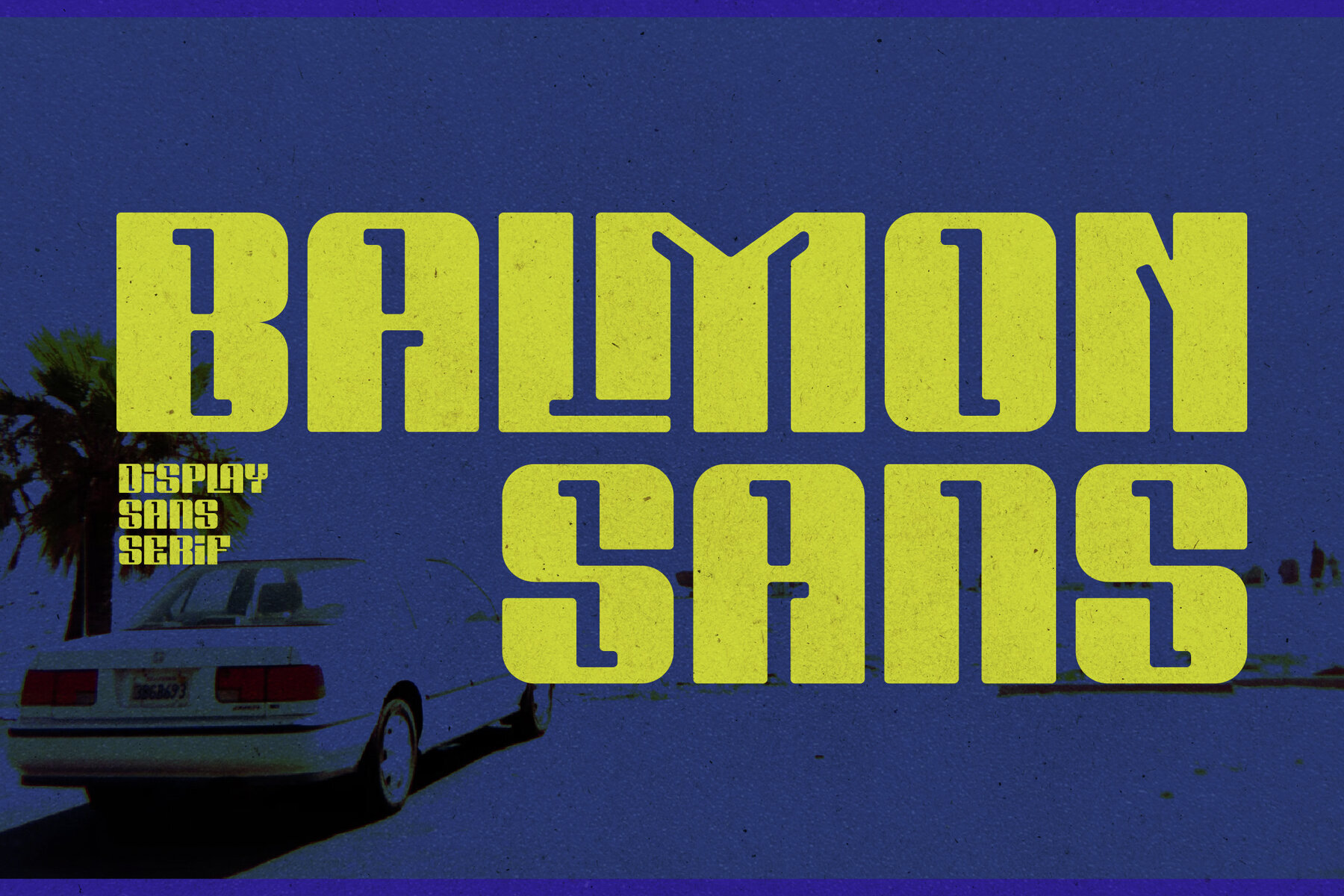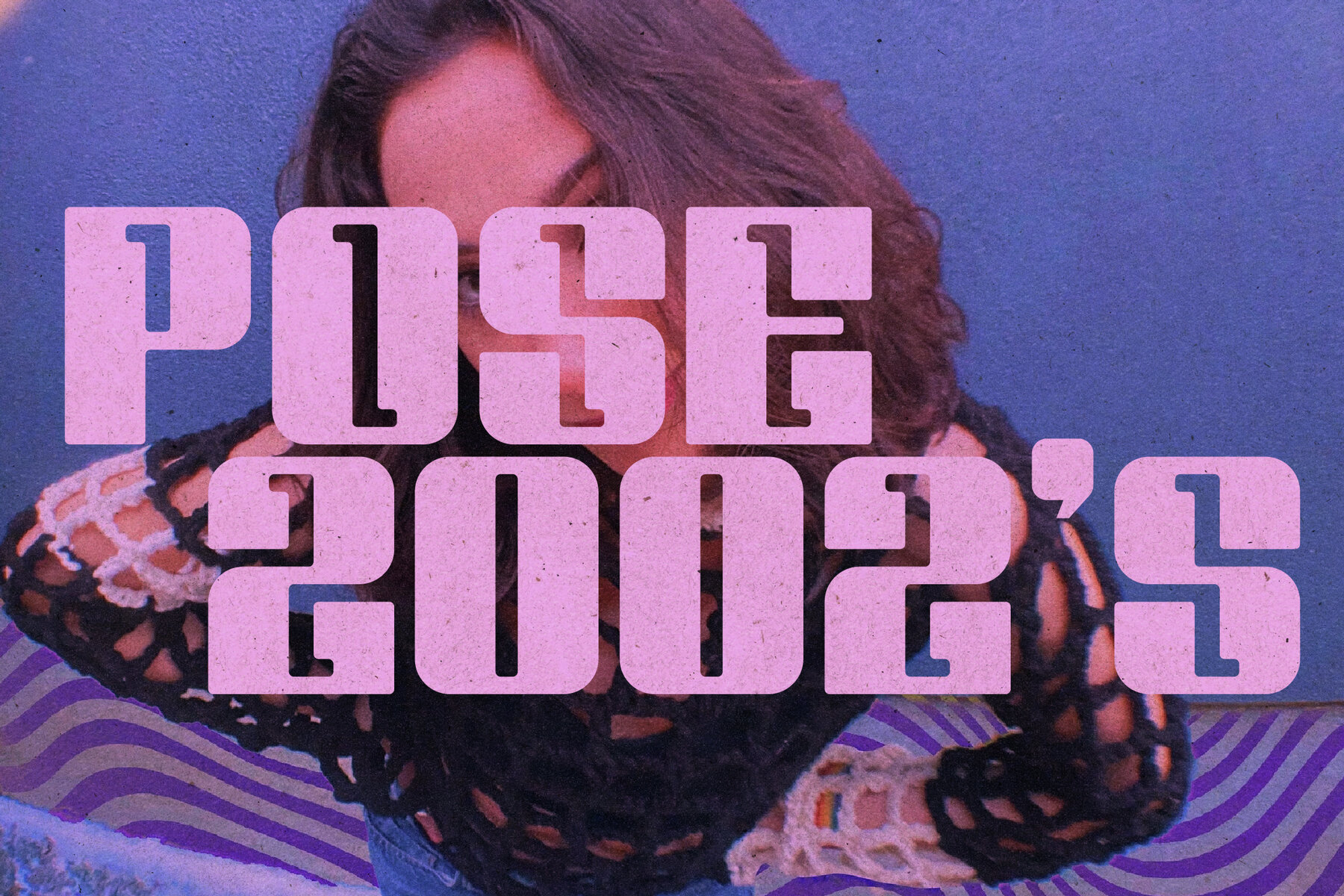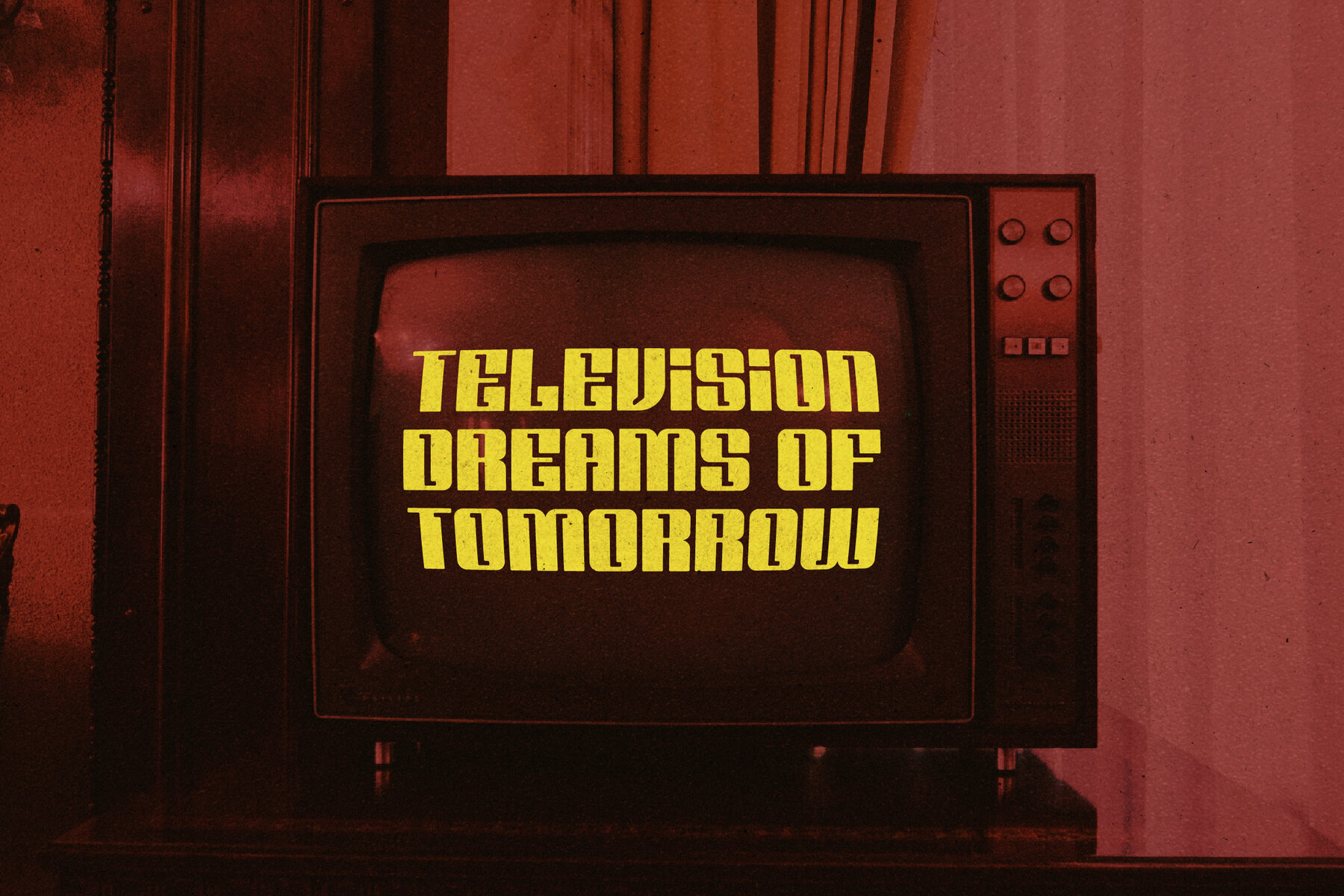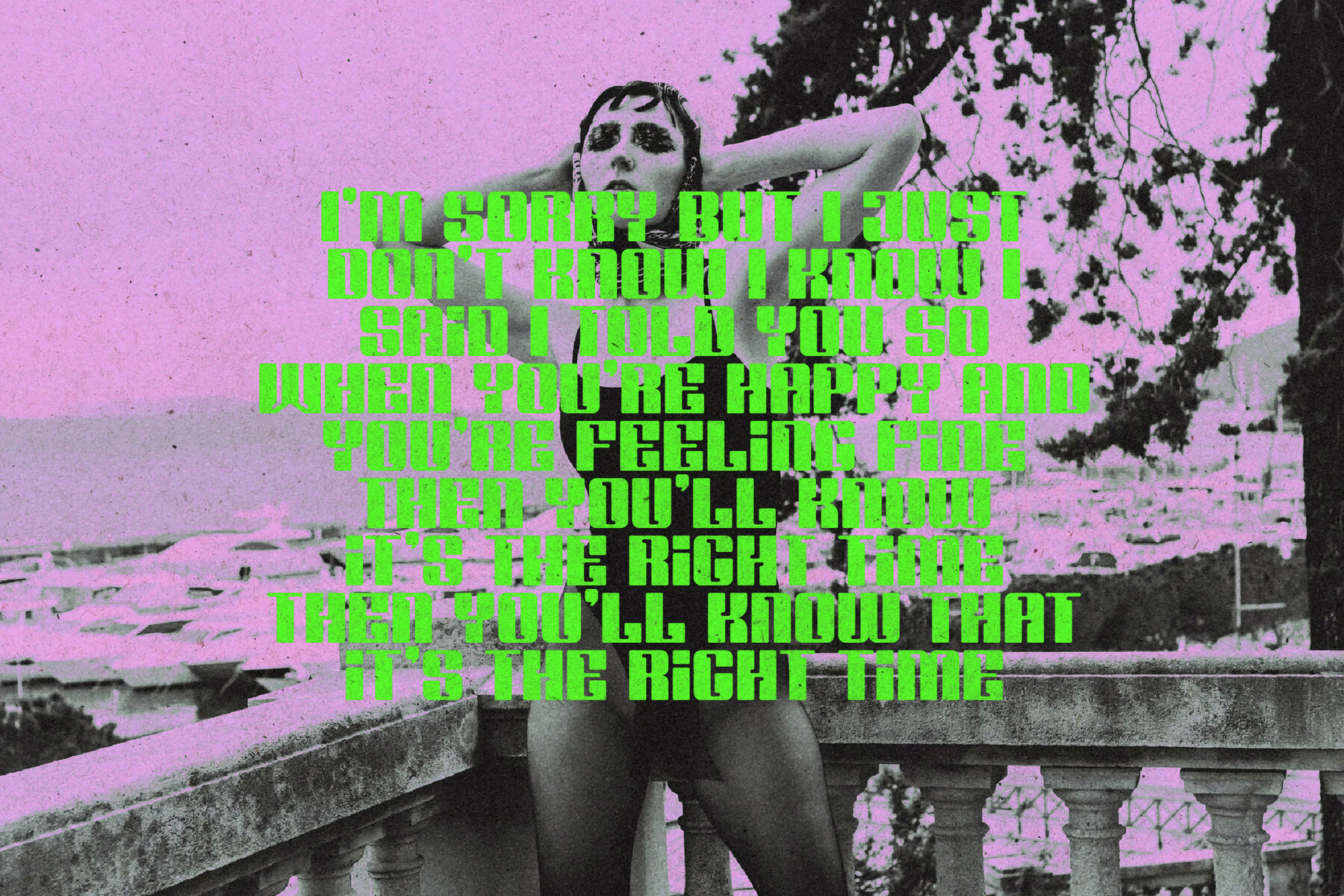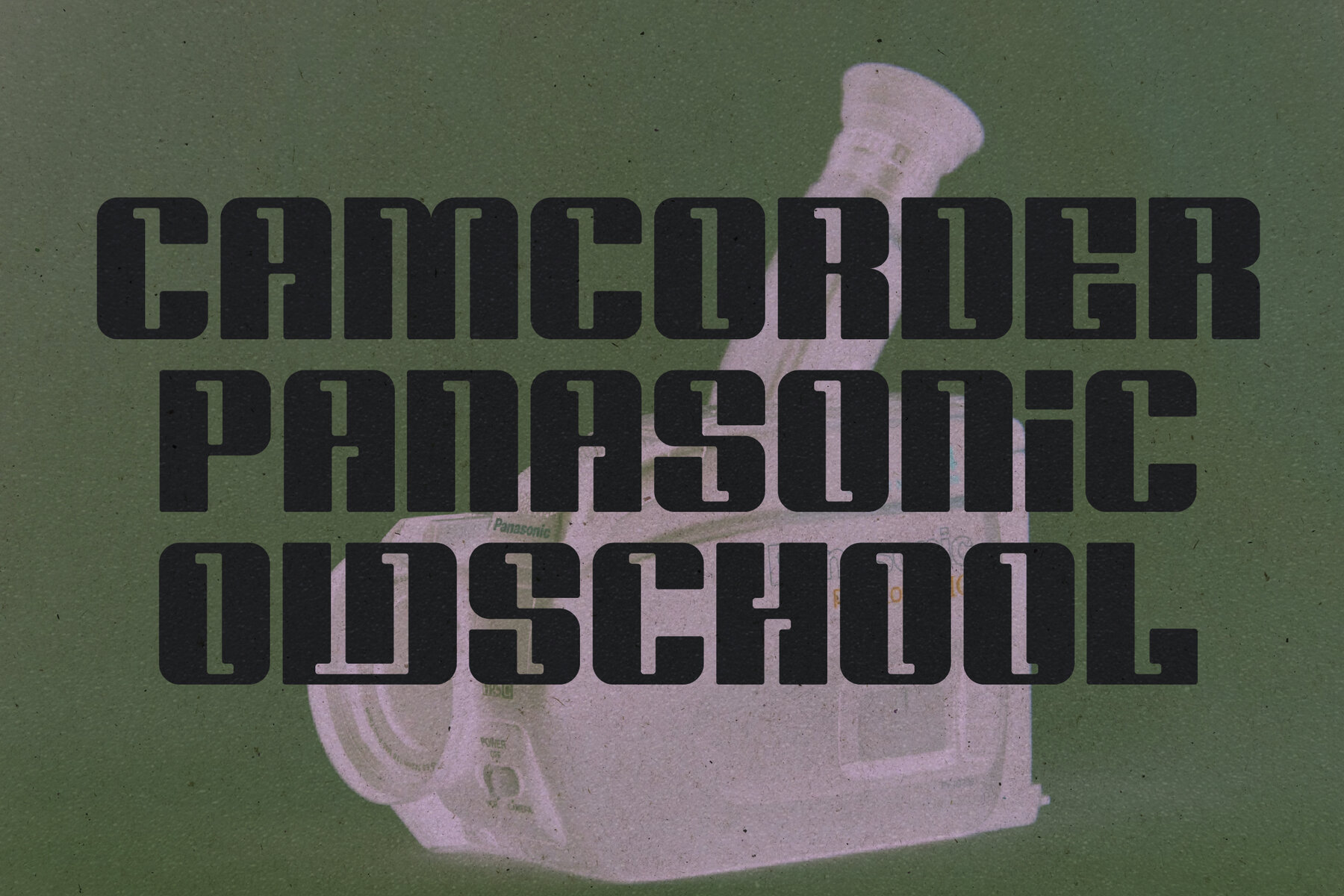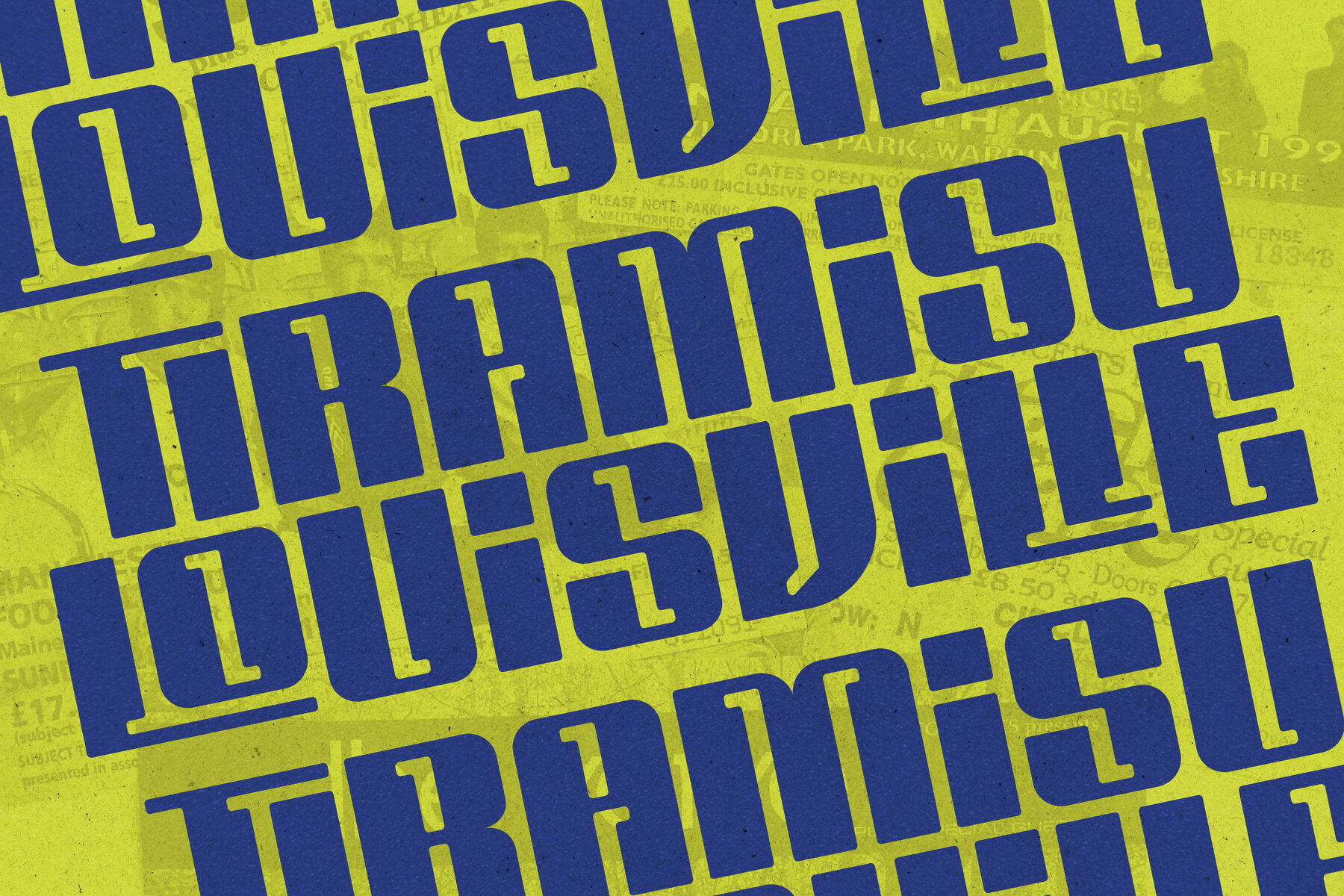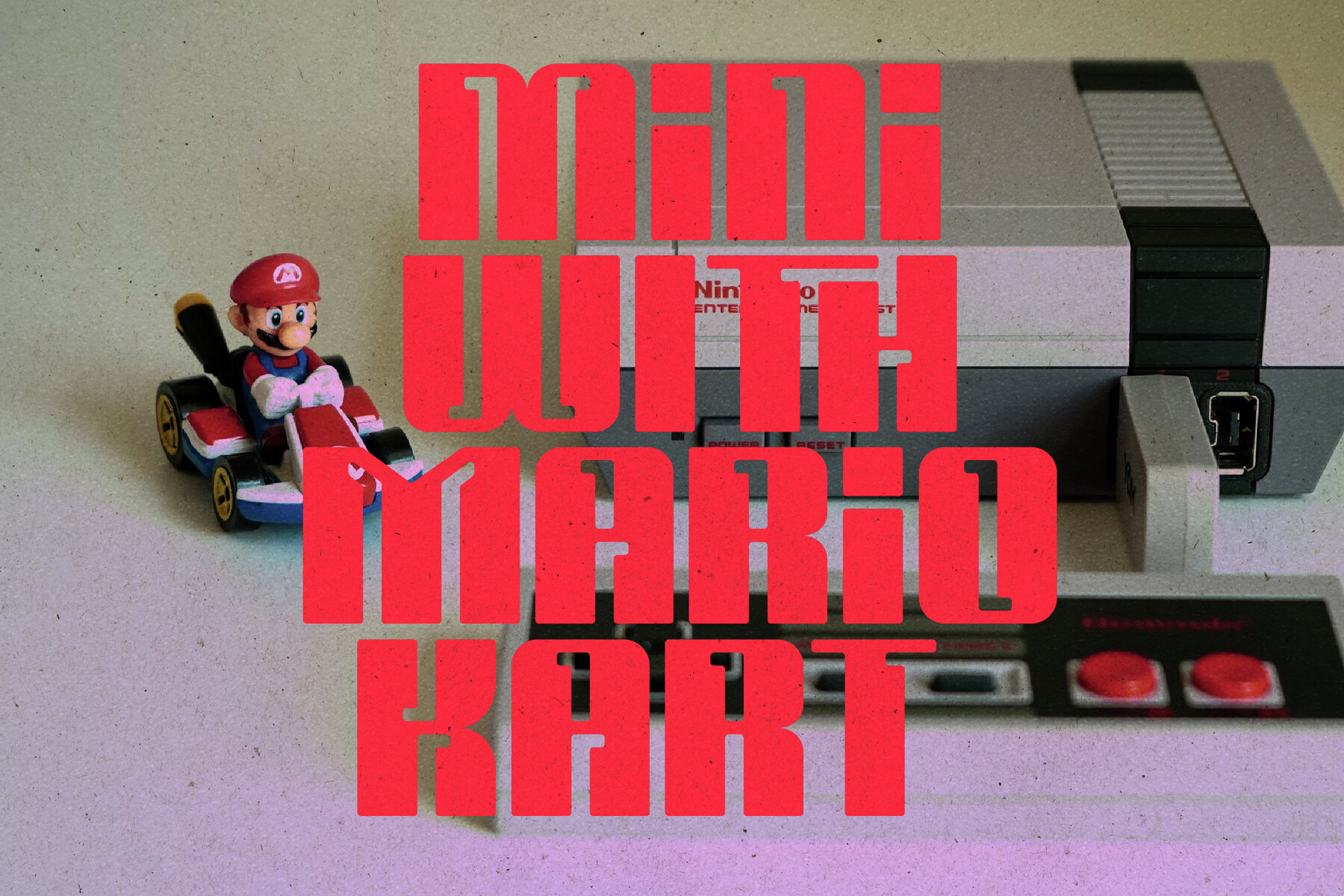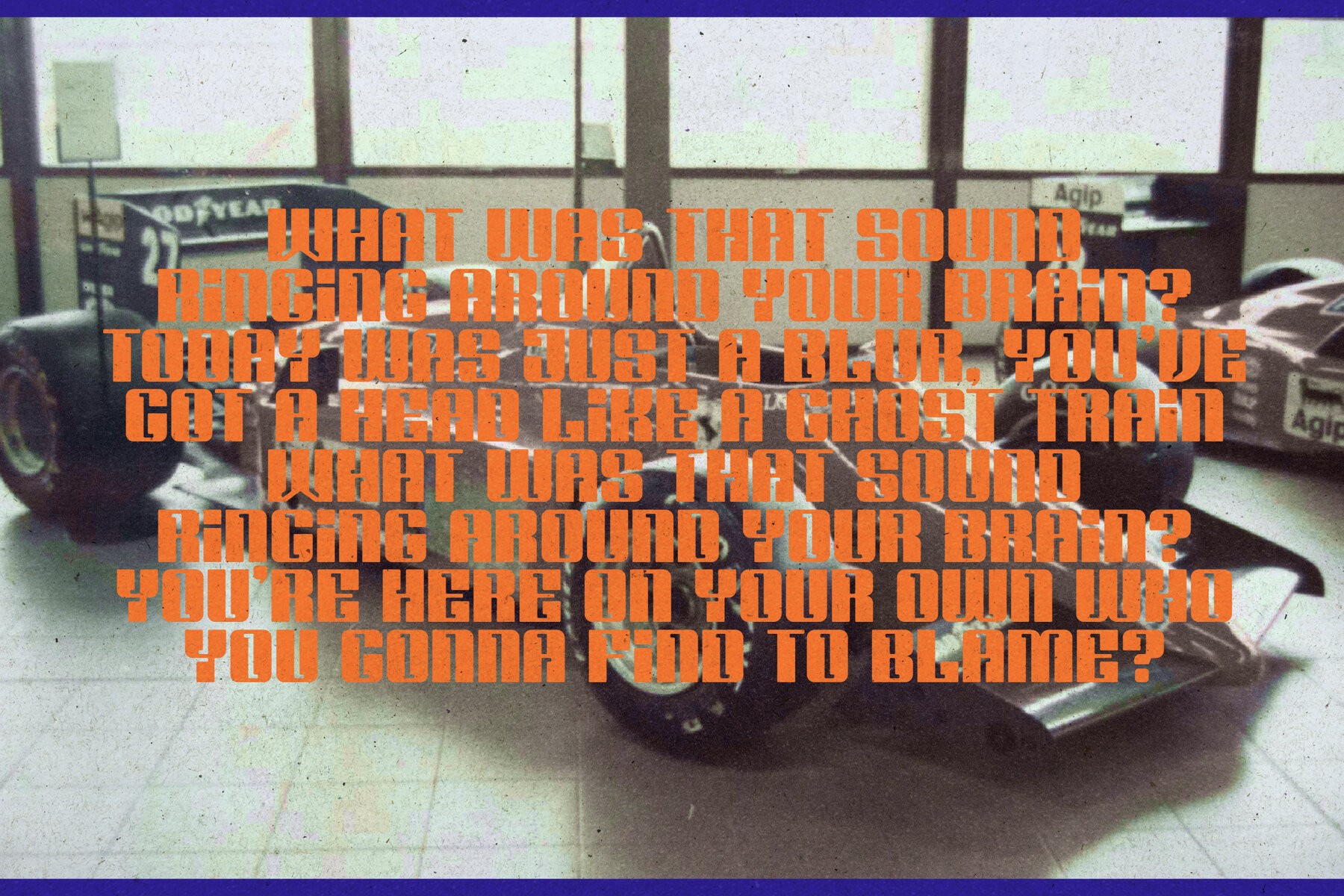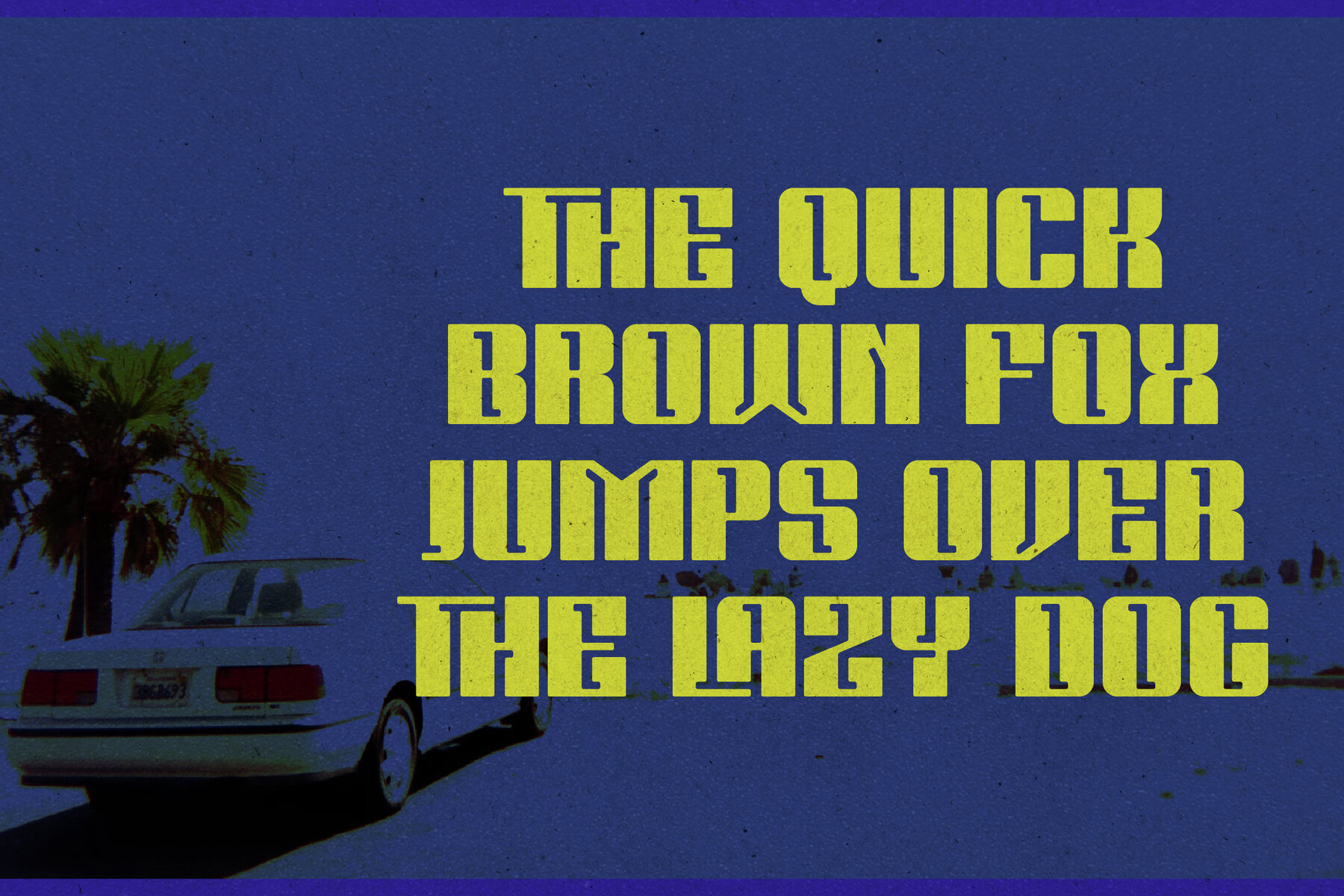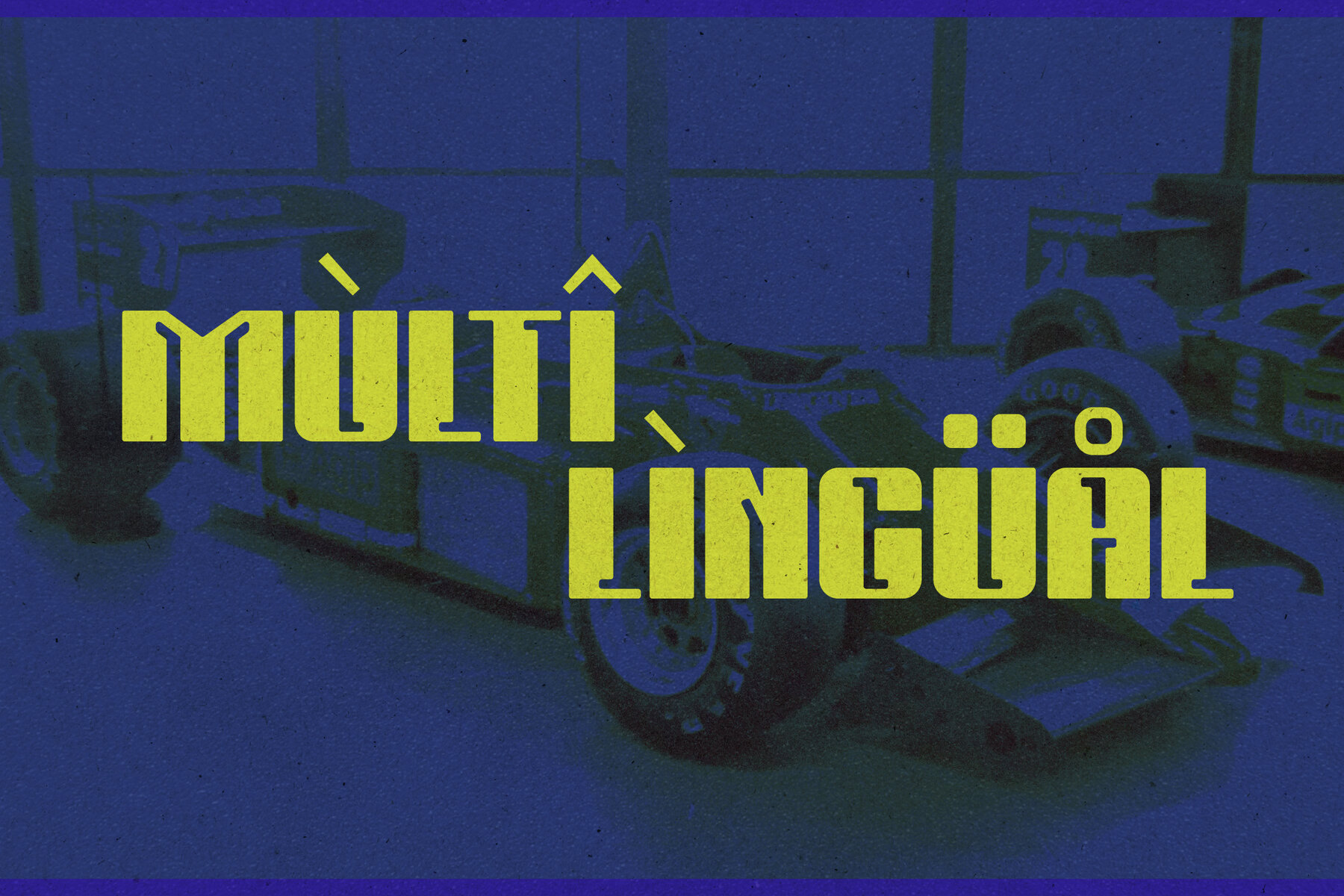
BALMON SANS Font
Introducing Balmon Sans Typeface, a unique fusion of modern and classic serif elements, crafted for the sophisticated designer. Balmon Sans brings an unparalleled style to your projects, whether it's for a luxurious logo, an eye-catching book or movie title, a fashion-forward brand, or a stylish magazine. Its versatility extends to clothing, lettering, quotes, and beyond, making it an essential addition to your design toolkit.Balmon Sans Typeface